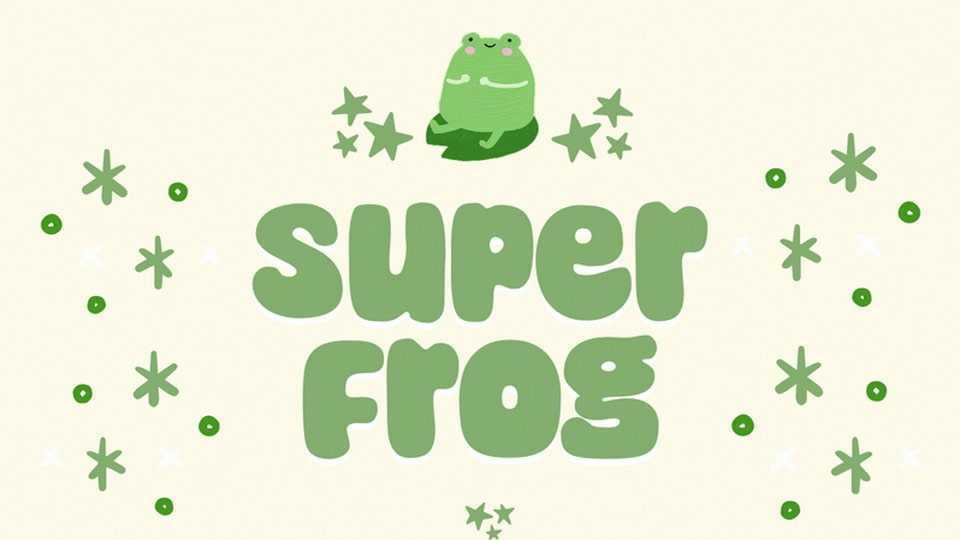
Download Super Frog font, a bold, rounded hand-crafted cartoon typeface that brings a burst of joy and playfulness to your designs. It features thick, bubbly letterforms with smooth curves and whimsical details